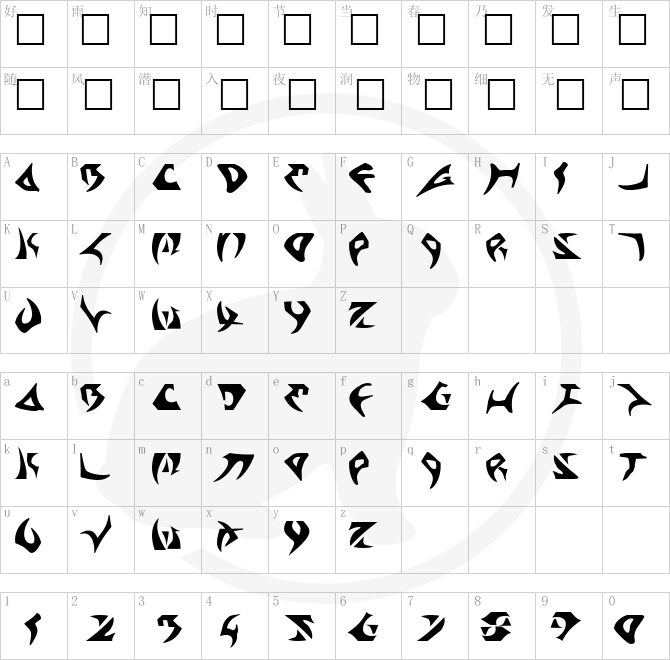
- Font Name:Kahless
Kahless.ttf is a very beautiful artistic font, Kahless.ttf is widely used in the design and printing of various books and pictures,Kahless.ttf has a strong visual impact,Kahless.ttf is a commonly used font in newspapers, magazines and books, and is used in posters, e-commerce Poster design, store design, logo design, font design and other fields.Kahless.